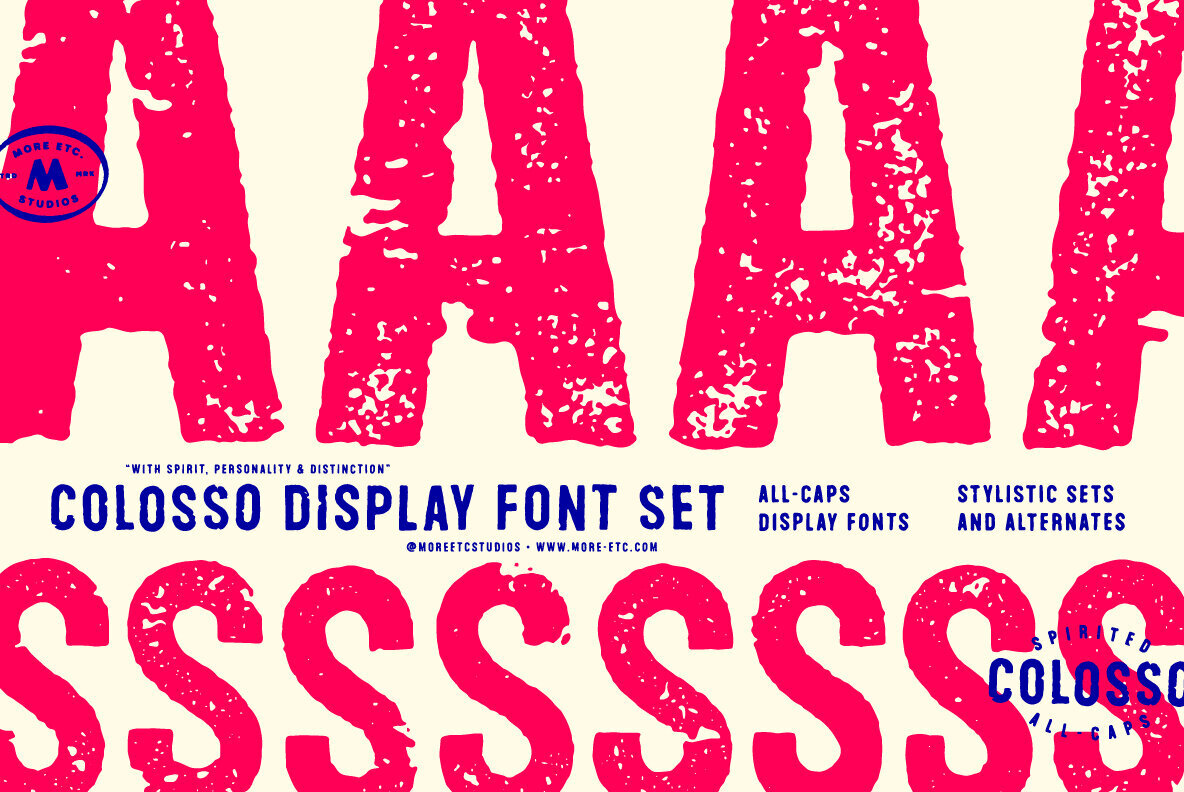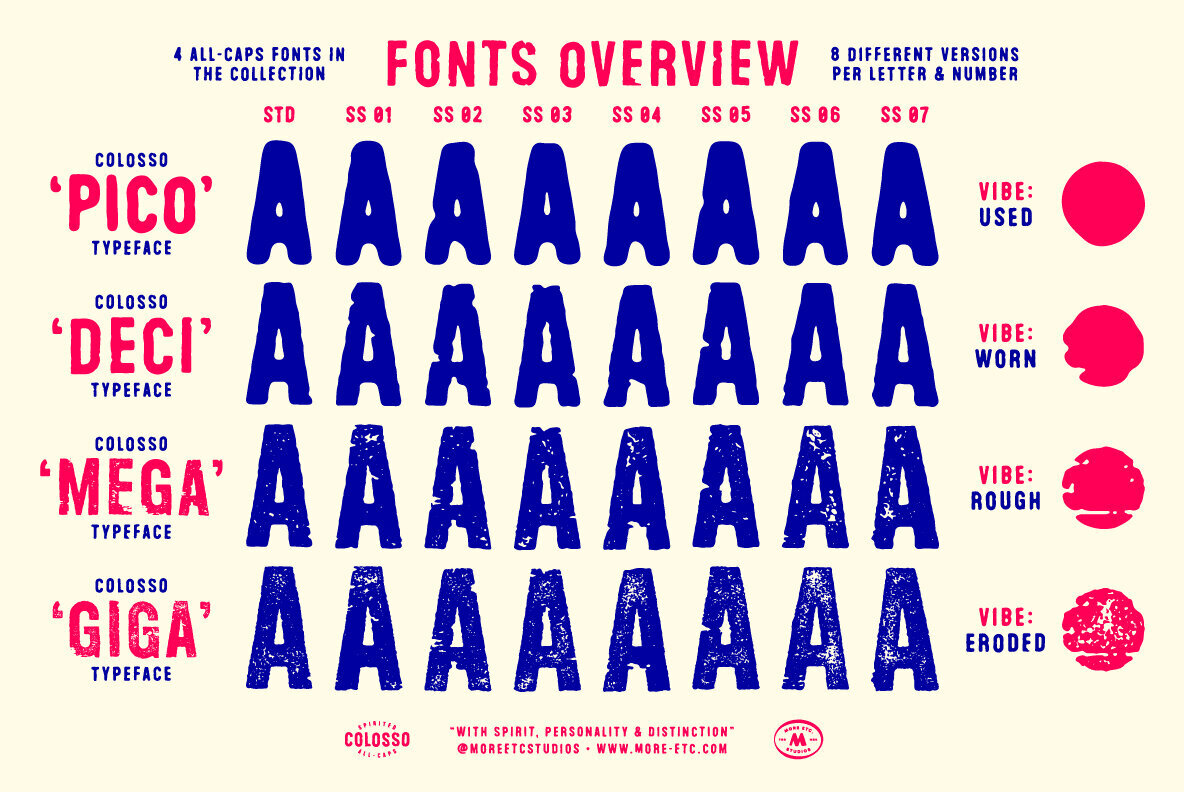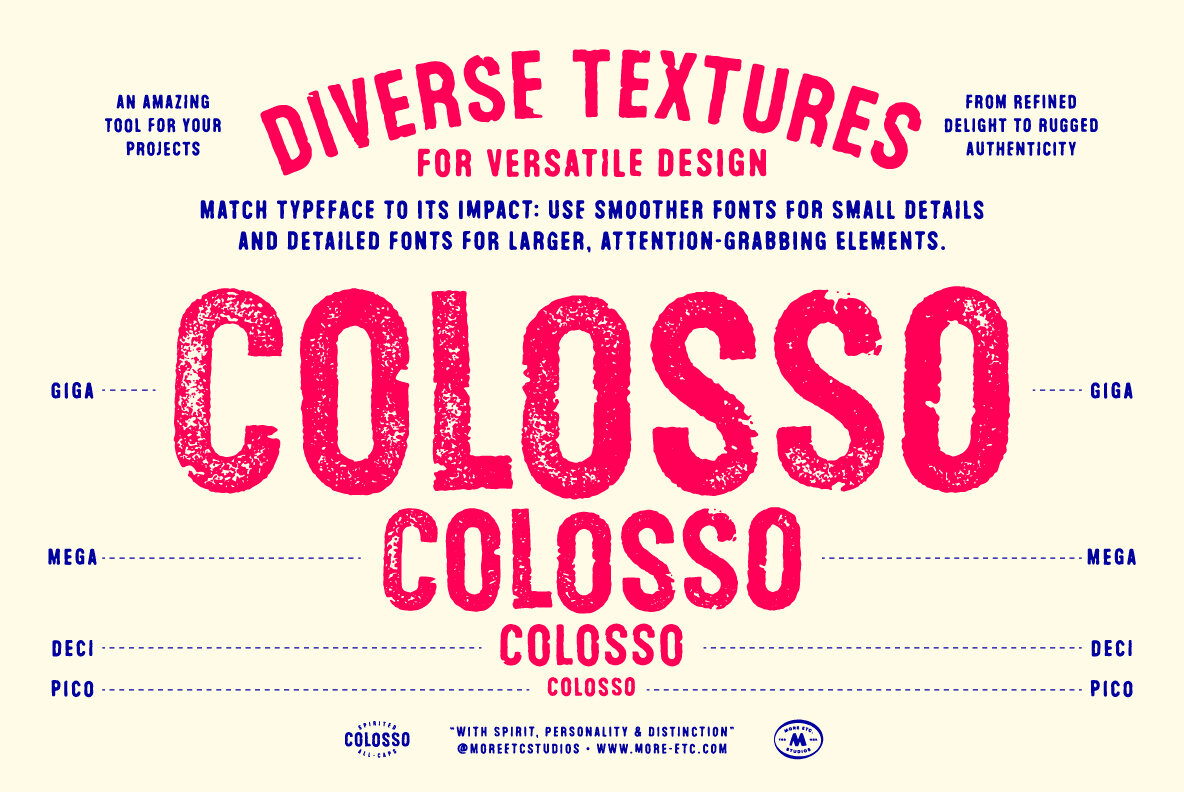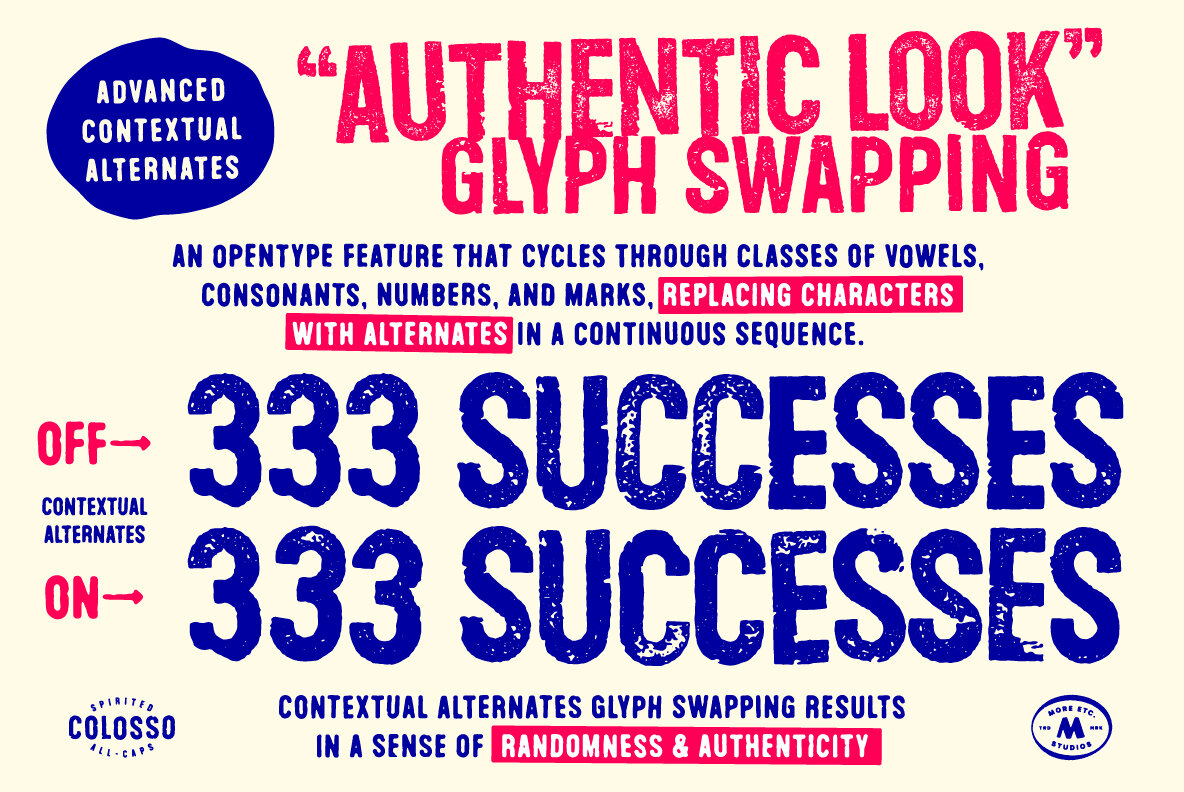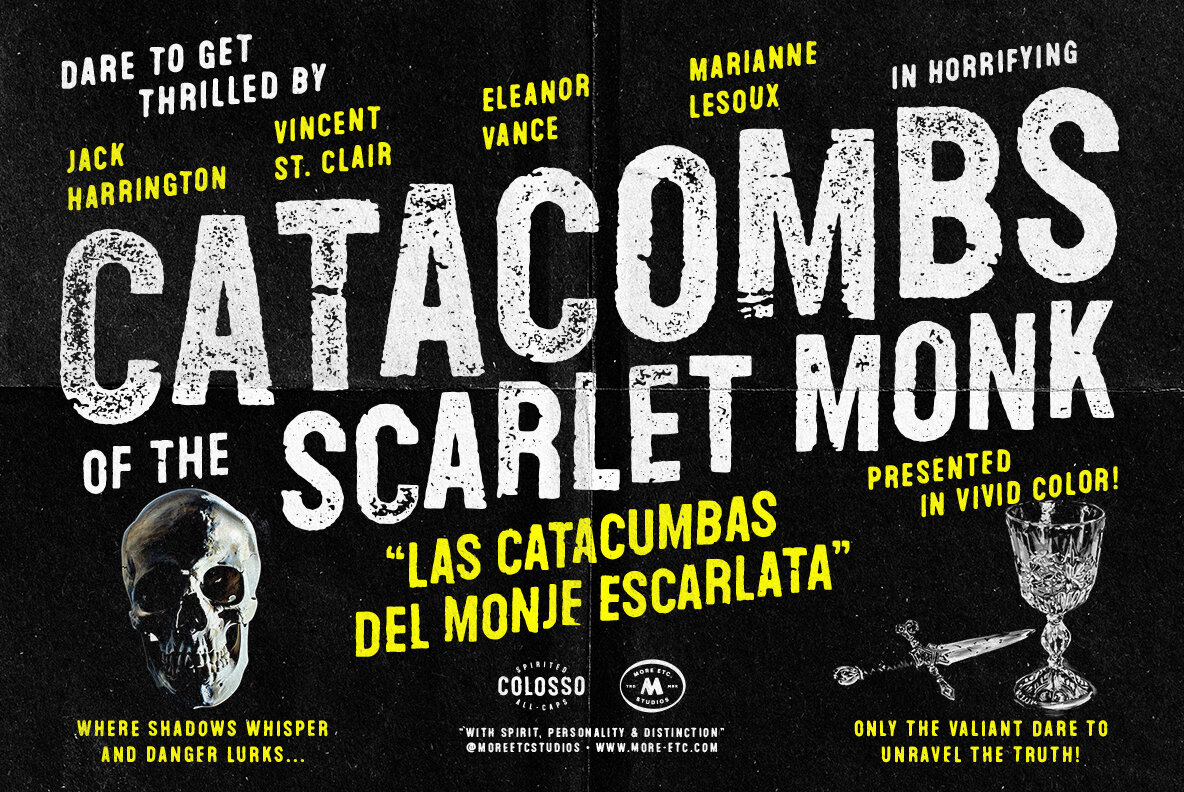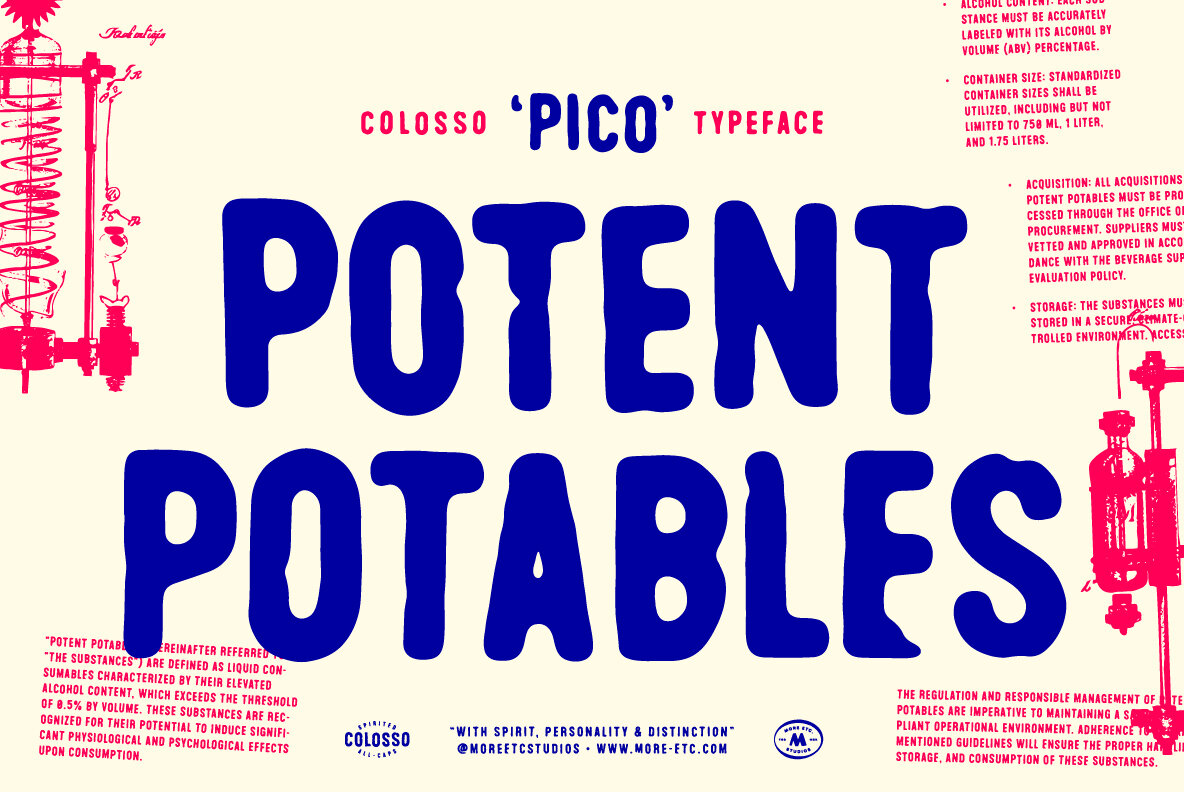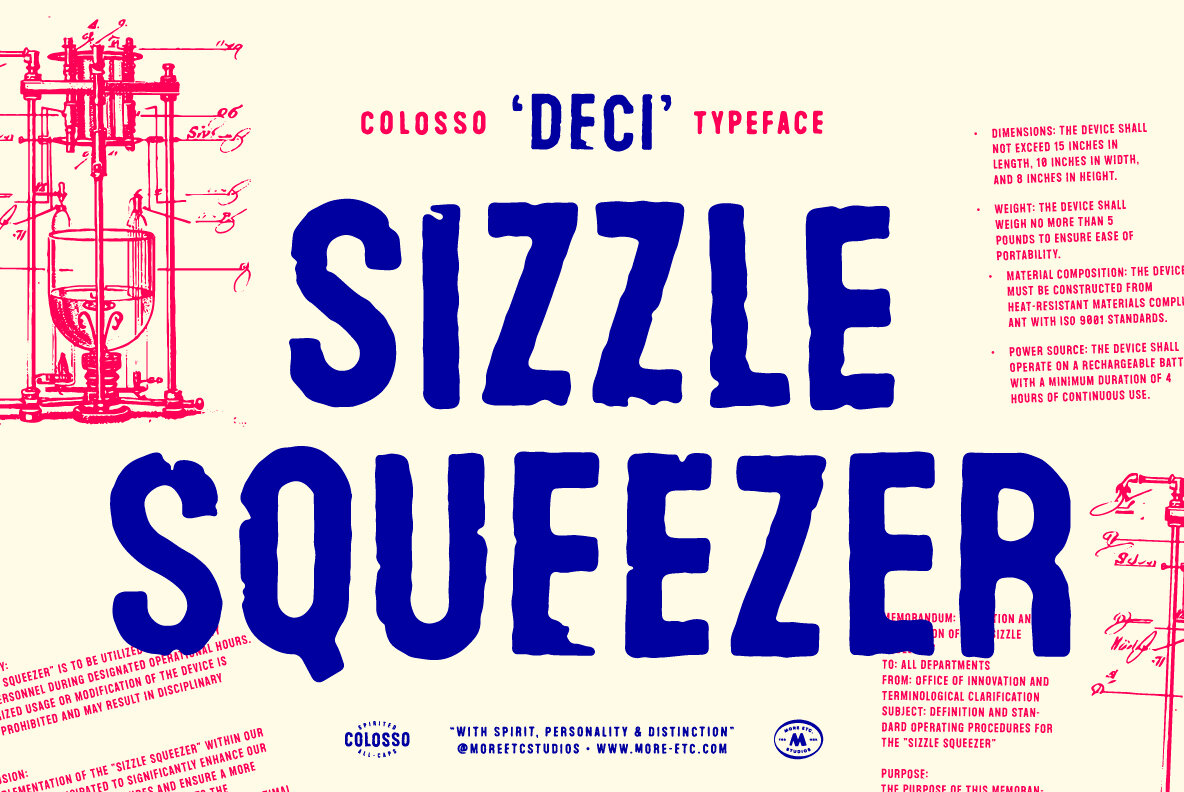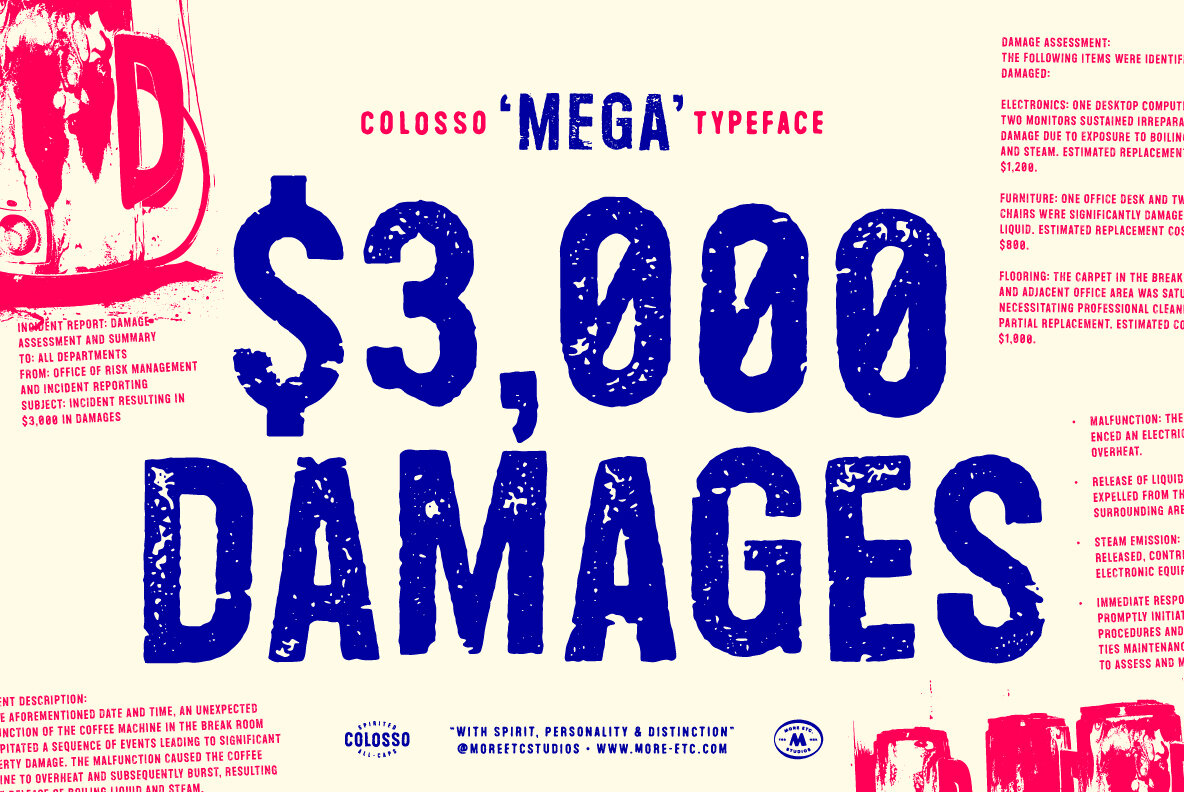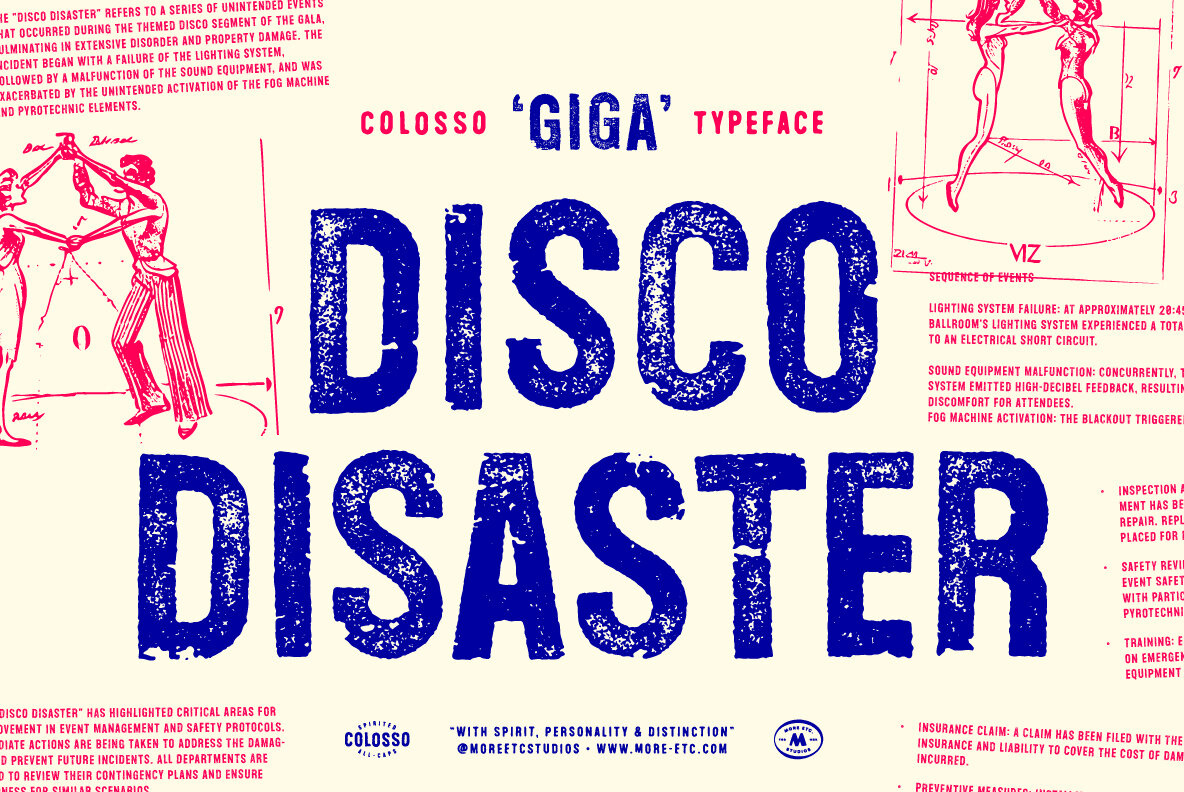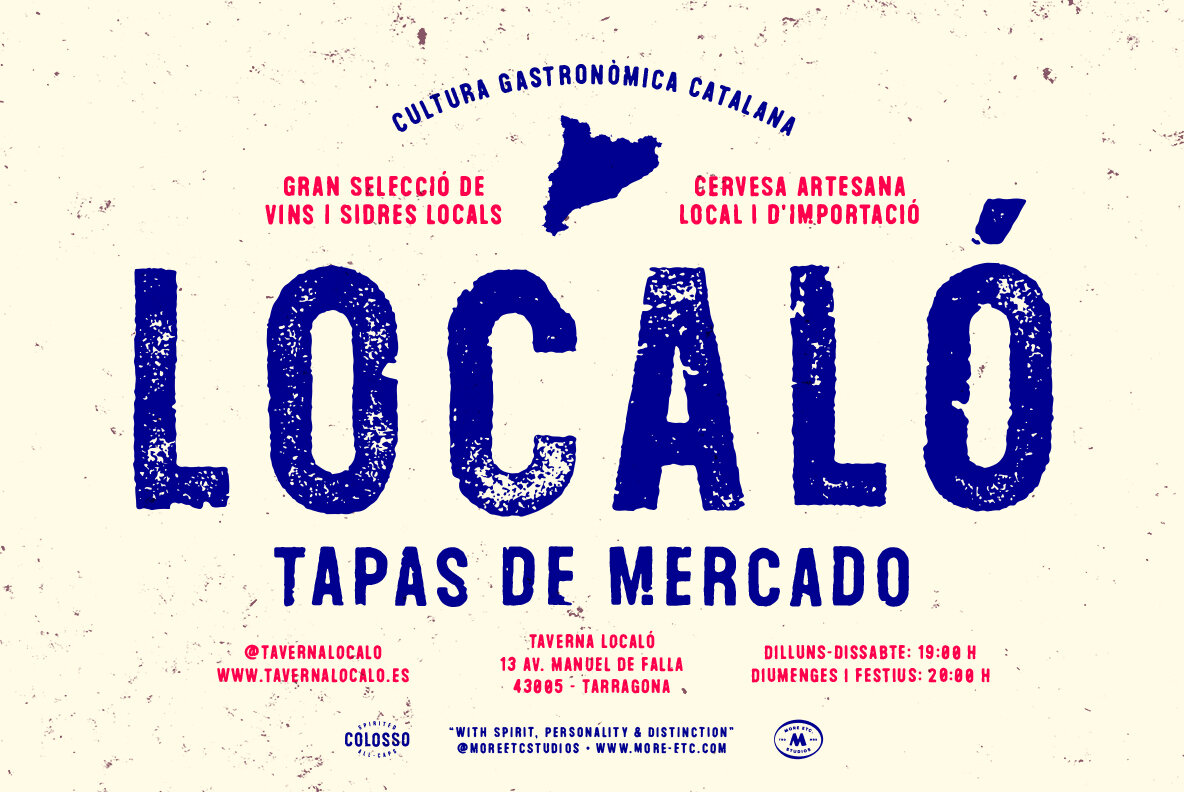
Colosso Font
Introducing Colosso – a collection of all-caps display fonts where every character make a bold statement. Drawing inspiration from the rich legacy of transfer lettering and vintage printing techniques, this collection is a tribute to the human imperfections inherent in handcrafted printmaking. It embraces the DIY aesthetics reminiscent of old fanzines, echoes the typographic expressions found in mid-century artworks, and channels the rebellious spirit of vintage punk flyers. Immerse yourself in the analogue authentic look of these typefaces – a purposeful departure from the sterile precision of computer-made fonts. Diverse Textures for Versatile Design Colosso is a curated collection of four distinct typefaces, each crafted to elevate your design projects with a unique blend of texture and style. From sleek and slick to weathered and eroded, these fonts offer a spectrum of visual experiences tailored for different design needs. Let's dive into the distinctive personalities of each font: Colosso Pico – Used vibe with personality. Resembling photocopied fine-print text that's been enlarged, Pico exudes an old-school smooth aesthetic with a used look. Ideal for slightly smaller text sizes, it brings a touch of personality to projects that demand a refined, classic vibe. Colosso Deci – Worn with visible imperfections. With an appearance reminiscent of dry transfer lettering, Deci carries an aged charm. Perfect for medium-sized text sizes, it adds a vintage handcrafted aesthetic to projects, embracing imperfections that tell a story. Colosso Mega – Rough and gritty with attitude. Channeling the rebellious energy of ink-stamped lettering gone rogue, Mega is designed for big text sizes. Ideal for bold statements and impactful messages, it injects a raw and gritty attitude into your designs. Colosso Giga – Eroded, very detailed and over-the-top. Giga roars with authenticity, resembling ink-stamped lettering and the detailed chaos of old letterpress wood type prints. Preferably used in big text sizes, it's perfect for attention-grabbing elements where every detail matters. These fonts are versatile tools crafted for diverse design experiences. The smoother the font, the smaller the character size it suits, and conversely, the more detailed, the larger the font size should be used. With Colosso, your design toolbox spans from fine-print to banner and poster sizes—a true asset for unleashing creativity. OpenType – Advanced Contextual Alternates The Colosso Font Family unlocks new design possibilities with its Advanced Contextual Alternates feature. Each of the four fonts offers 8 variations for every letter, number, and select punctuation mark. Activating the Contextual Alternates feature in your OpenType-friendly application triggers a feature that cycles through classes of vowels, consonants, numbers, and marks, replacing characters with alternates in a continuous sequence. This results in a delightful interplay of characters, introducing a sense of randomness and infusing an unparalleled authenticity into your design projects. Multilingual Support – Latin Plus Colosso is 100% Latin Plus compatible, supporting over 200 languages. This font family is your truly global companion in loud and vivid creative expression. This font collection transcends conformity; it's about standing out. With a focus on authenticity, passion, and personality, Colosso is the choice for designers who refuse to settle for the ordinary.